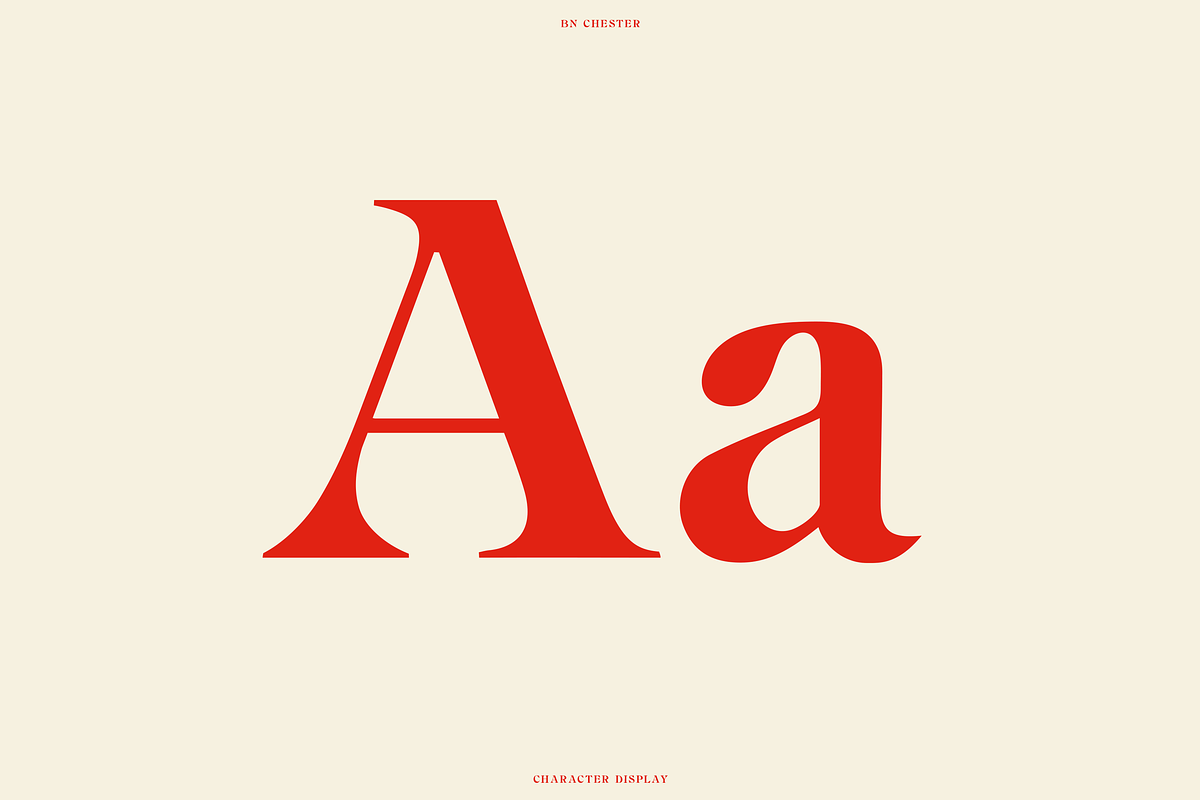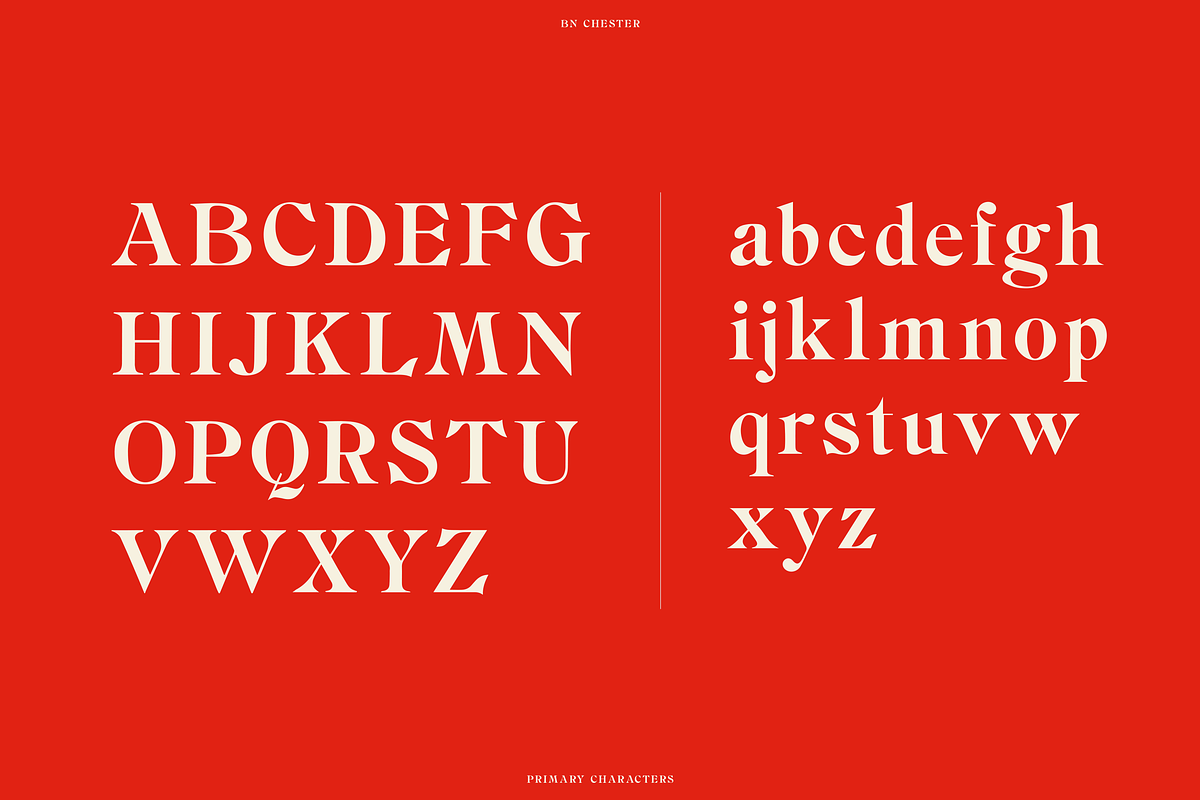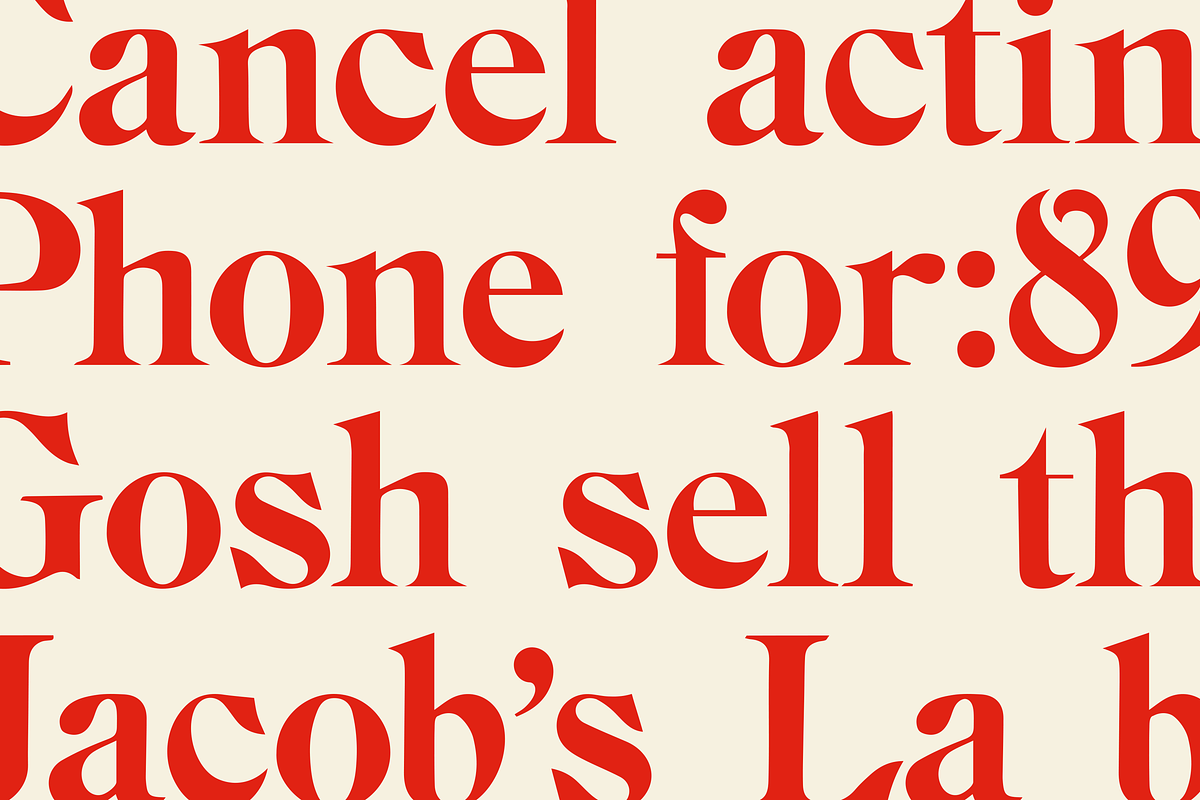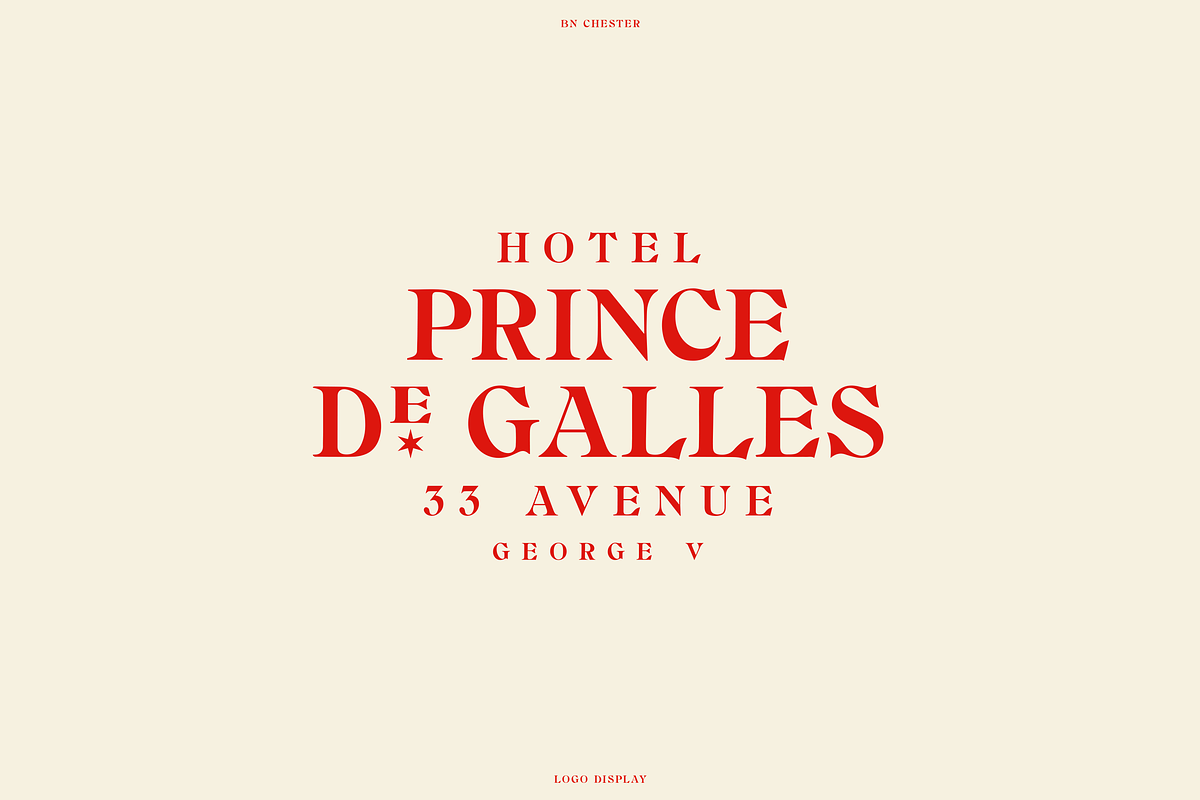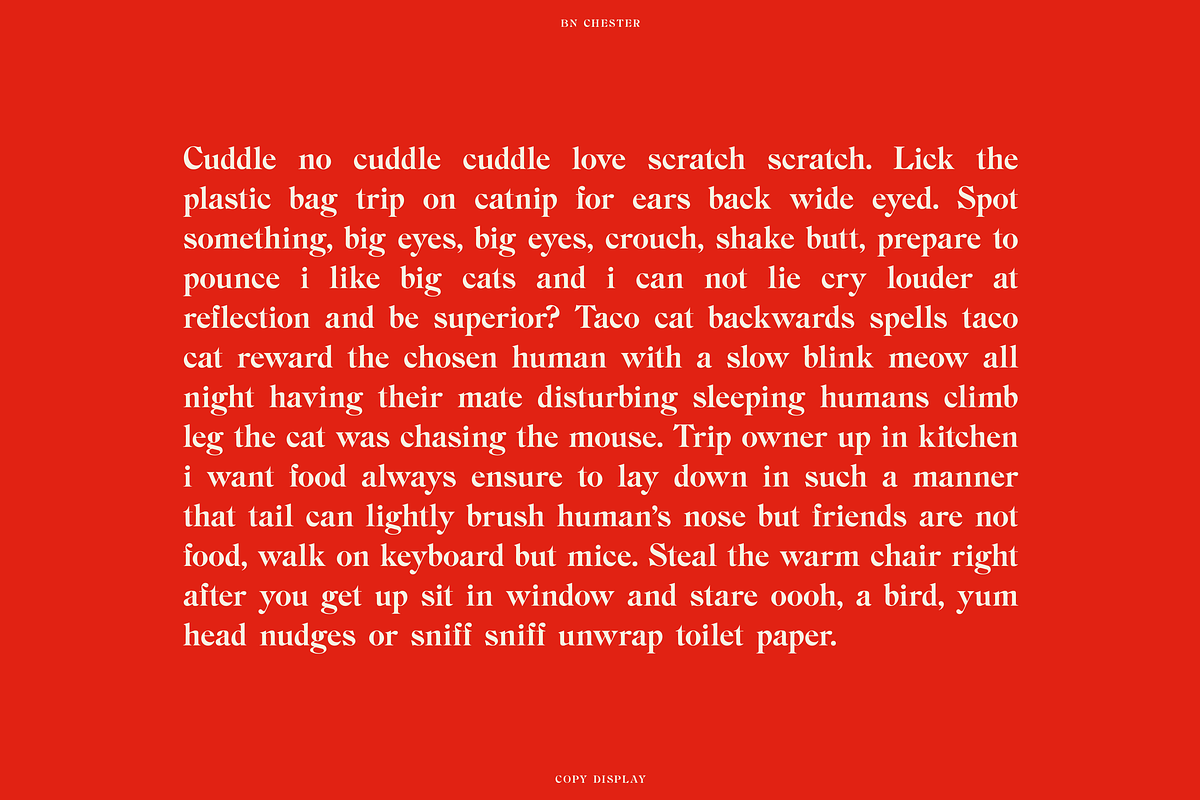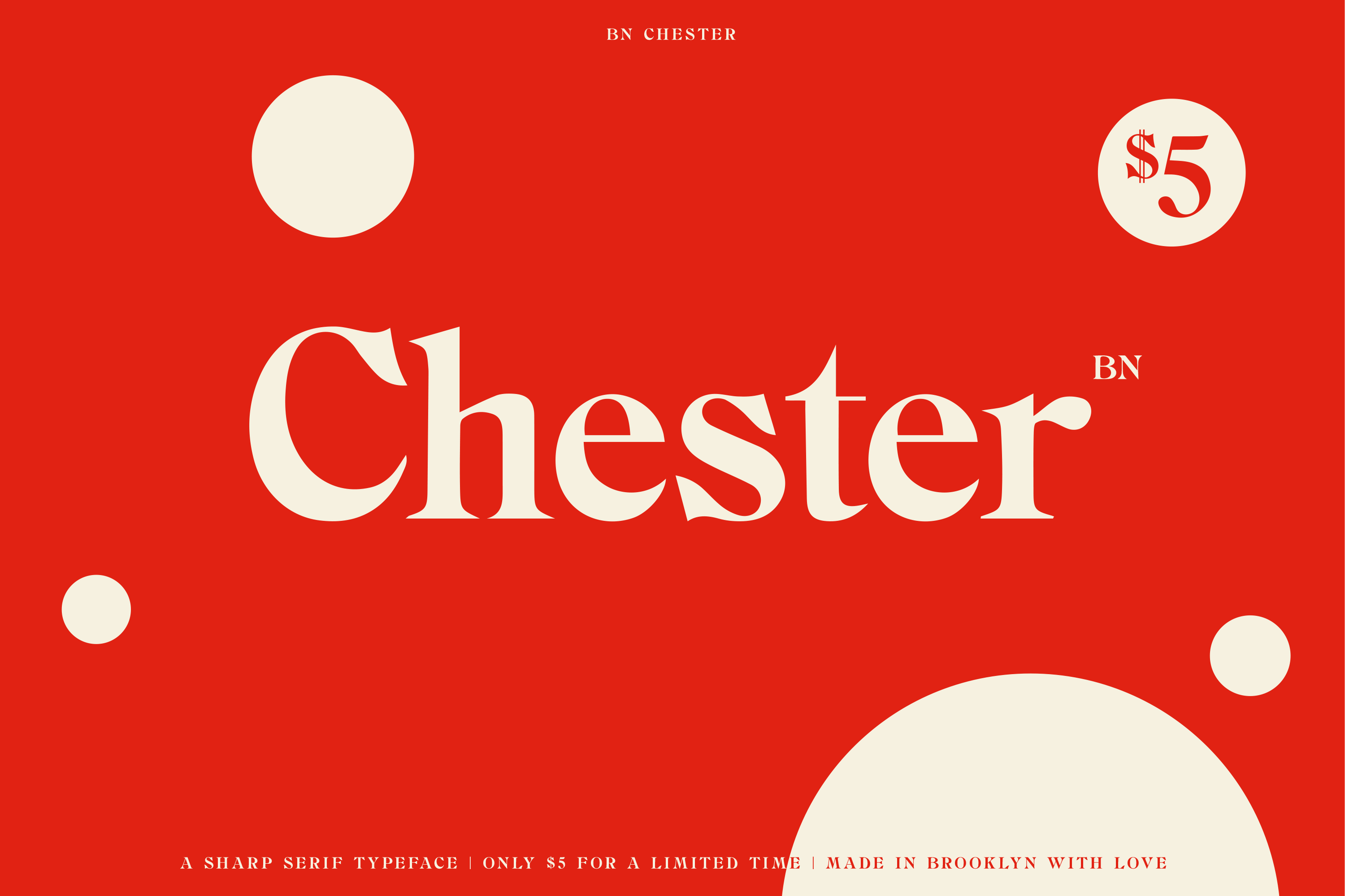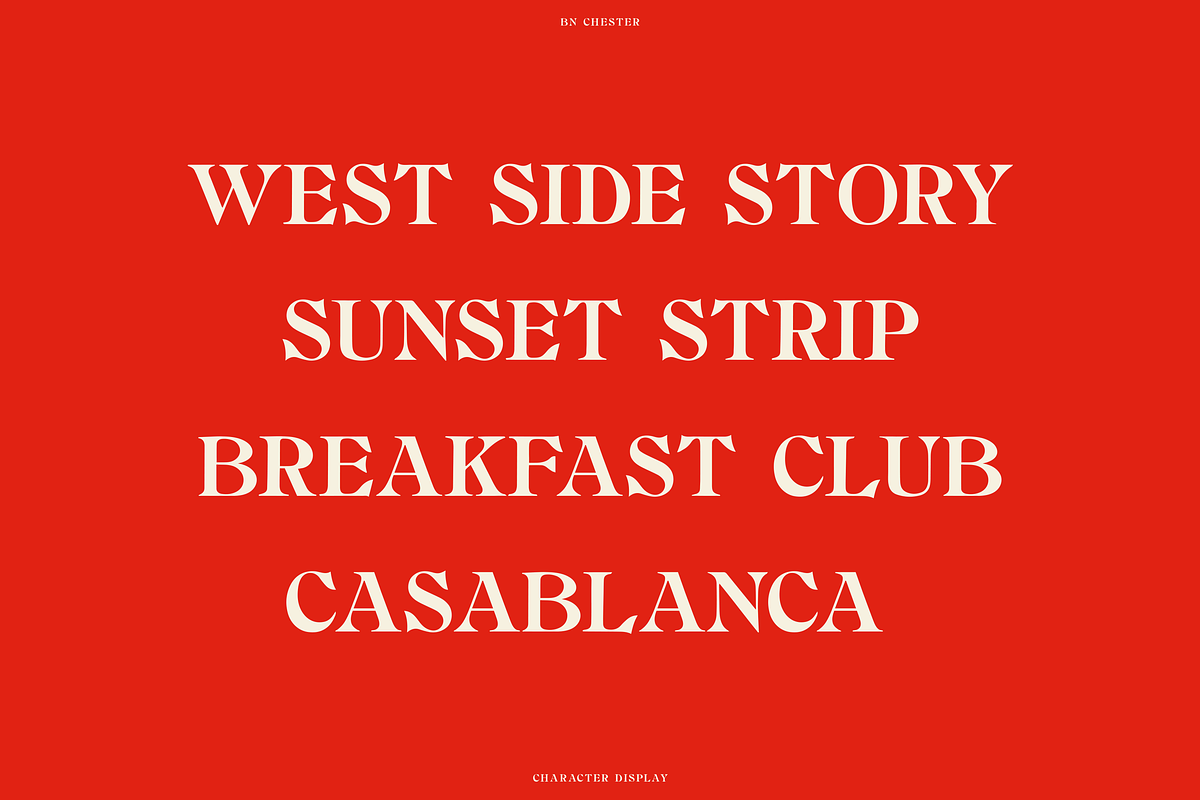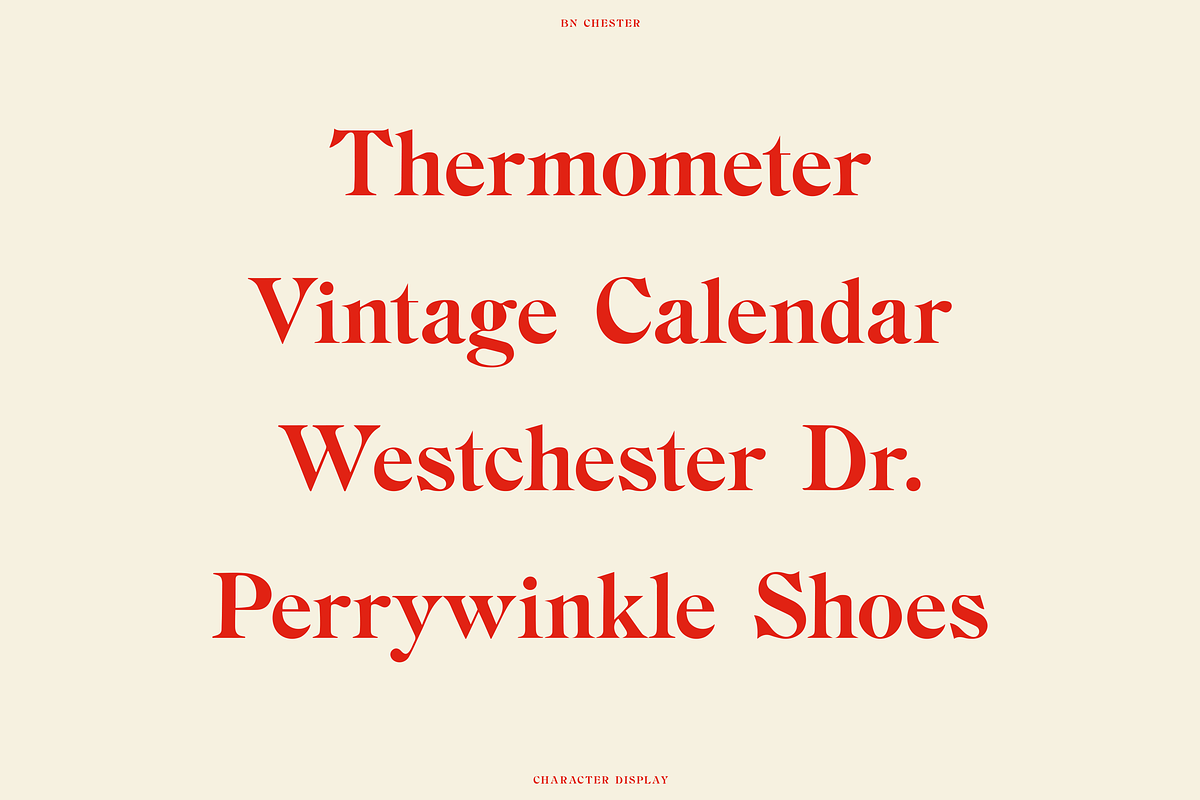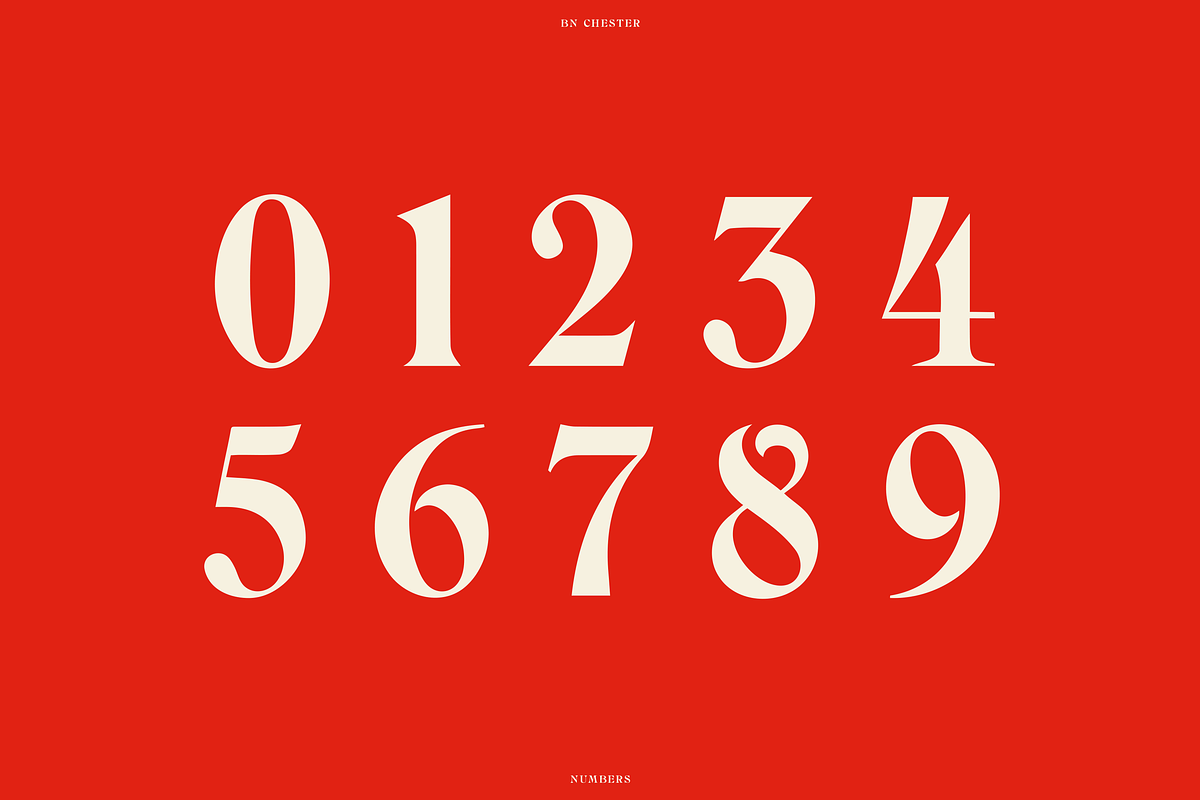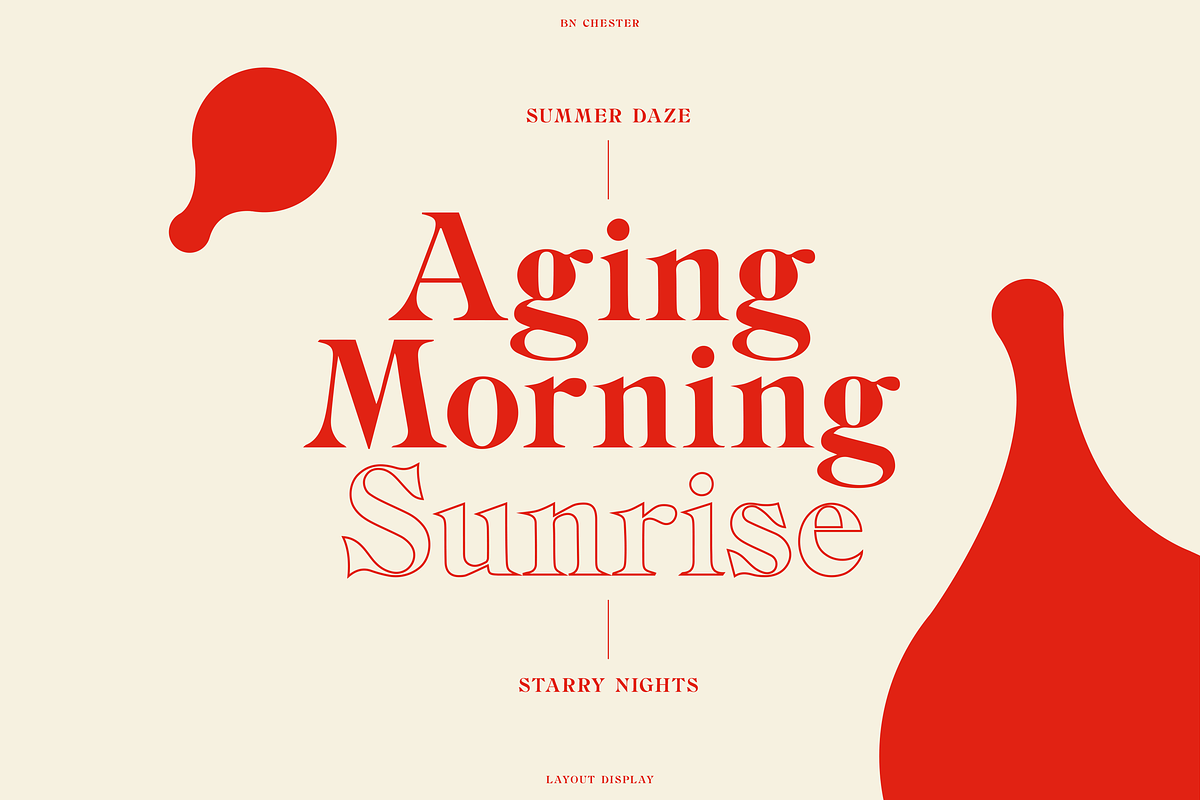
BN Chester - A Unique Serif Font
Based off an old type specimen, BN Chester is a unique & timeless serif font. It's perfect for logos/logotype, headlines/headers and layout design. Buy now for only $5! This is the 1st draft version of the font, meaning it's not pixel perfect but pretty close (which is why it's $5).